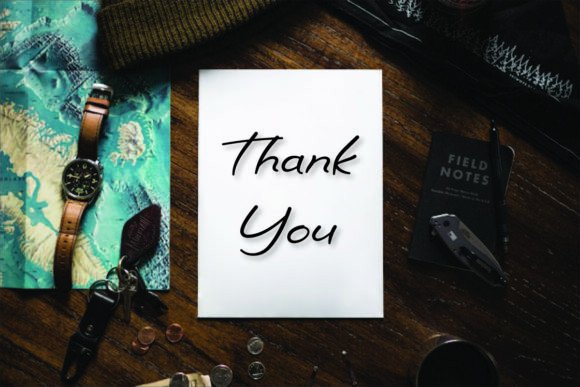
Introduction to Remix Font
Have you ever been in the midst of a creative project, searching for the perfect font to give it that extra oomph? You’ve scrolled through countless design resources, and still, nothing seems quite right. That’s when you stumble upon the Remix Font – a game-changing addition to your design arsenal.
With its elegant, handwritten script, the Remix Font is perfect for adding a touch of sophistication to your invitations, logos, and branding. Its flowing curves exude charm and warmth, making it an ideal choice for designers looking to elevate their projects. And the best part? It’s available for a free download, complete with a transparent background, allowing you to seamlessly integrate it into your high-quality designs.
Key Features of Remix Font
- Unique, handcrafted design with a transparent background, perfect for various design applications.
- Designed to be easily scalable, ensuring crisp and clear visuals even at high resolutions.
Honest Review: Remix Font
I recently stumbled upon the Remix Font while searching for a design resource for my next creative project. As a designer, I’m always on the lookout for high-quality fonts that can elevate my work.
What works well: ✨ The Remix Font is incredibly versatile and comes in a wide range of styles, from modern to classic. I love that it’s a free download, making it perfect for designers on a budget. The font is also highly customizable, with options for different weights, sizes, and colors.
What I’m not a fan of: ⚠️ The Remix Font can be a bit too bold at times, which may not be suitable for all design projects. Additionally, the transparent background option can be a bit tricky to work with, especially for those who are new to design.
Overall, I’m impressed with the Remix Font. It’s a great addition to any designer’s toolkit, and I’d highly recommend it for any creative project that requires a high-quality, modern font.
- Wide range of styles
The Remix Font is a high-quality, free download that can elevate any creative project. With a transparent background, it’s perfect for designers looking to add a unique touch to their work.
– Add the Remix Font to your designs for a professional look.
– Use the Remix Font to create stunning graphics and illustrations.
- Combine the Remix Font with other design elements for a unique look.
The Remix Font is perfect for:
- Branding and logos.
- Graphic design and illustrations.
- Web design and development.
Alternatives to Remix Font
Montserrat is a popular sans-serif font known for its high quality and versatility. It’s a great choice for creative projects that require a clean and modern design. Montserrat is a free download, making it an excellent alternative to Remix Font for designers on a budget. Use it for headings and body text to add a touch of sophistication to your design.
Compared to Remix Font, Montserrat has a more geometric and sleek appearance, making it perfect for digital products and websites.
Open Sans is another highly regarded sans-serif font that’s perfect for design projects requiring a transparent background. Its clean lines and minimalistic design make it an excellent choice for body text and headings. Open Sans is available for free download, making it a great alternative to Remix Font for designers who want a high-quality font without the cost.
Compared to Remix Font, Open Sans has a more rounded and approachable appearance, making it perfect for blog posts, articles, and other written content.
Lato is a beautiful sans-serif font that’s perfect for design projects requiring a touch of elegance. Its high-quality design and transparent background make it an excellent choice for creative projects. Lato is available for free download, making it a great alternative to Remix Font for designers who want a premium font without the cost.
Compared to Remix Font, Lato has a more refined and sophisticated appearance, making it perfect for branding, marketing materials, and other design resources.